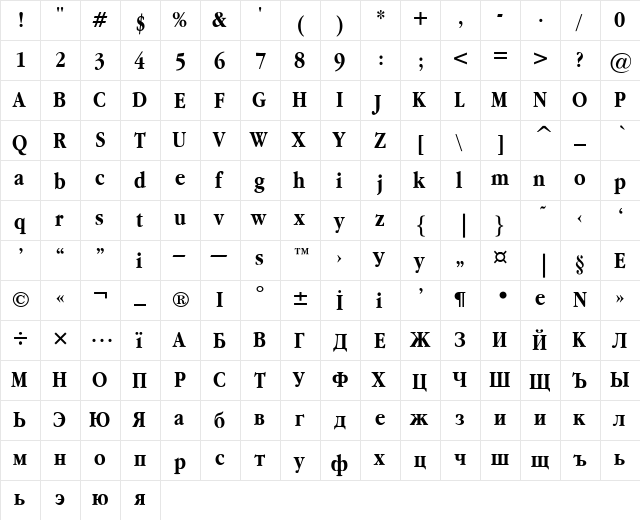
Garamond Narrow Bold
Design Context for Garamond Narrow Typeface
Garamond Narrow offers clean, dependable letterforms without strong stylistic allegiance, making it a practical choice for designers who need flexibility. Its bold stroke weight gives it real presence on the page. The condensed width makes it efficient for tight spaces without sacrificing legibility.
Pro Tip: Use Garamond Narrow in both headline and body roles to test its range before committing to a single application.